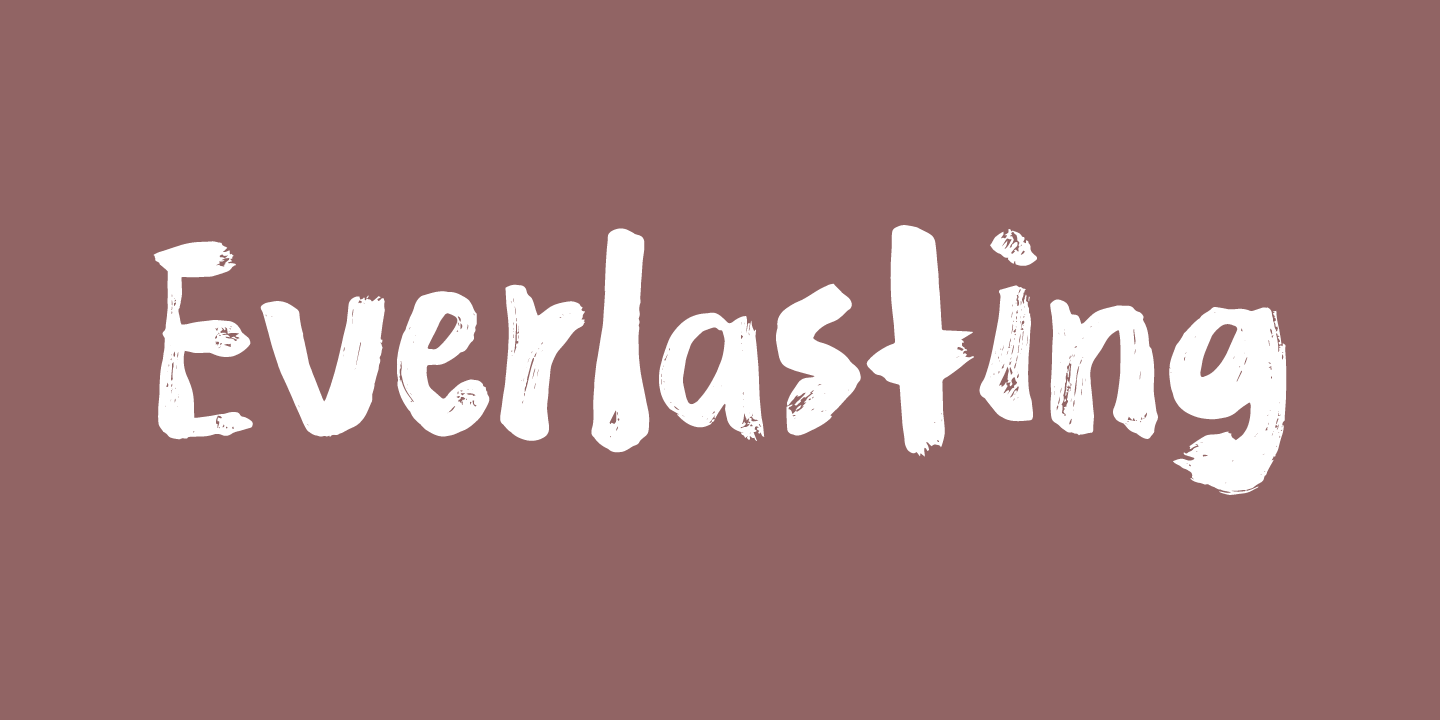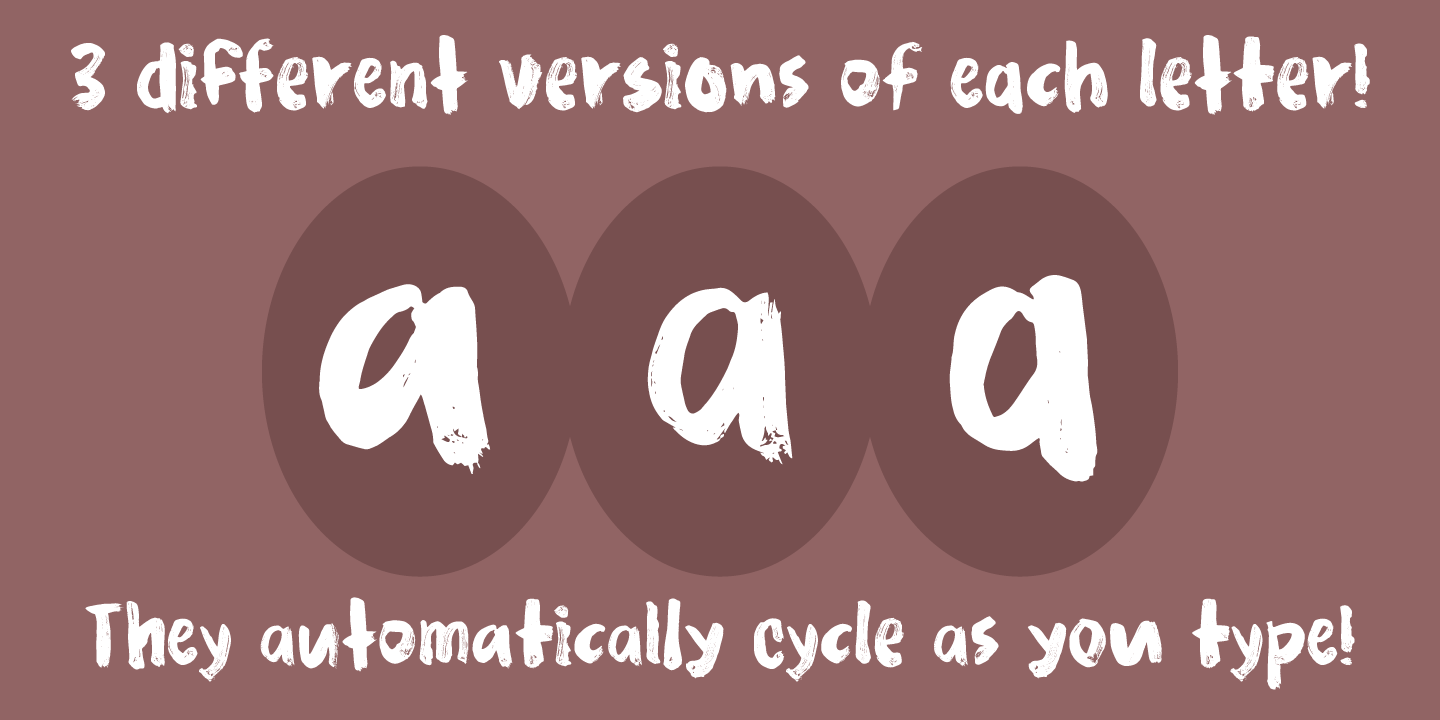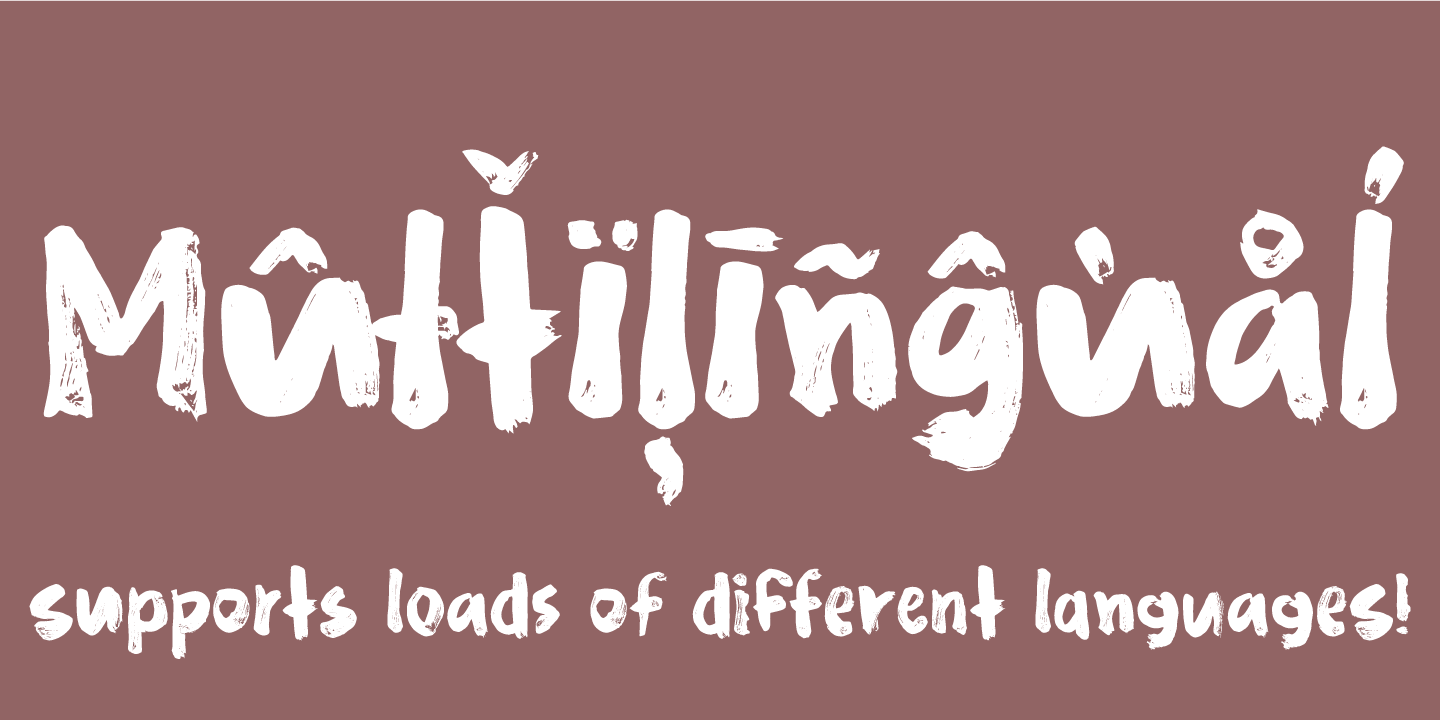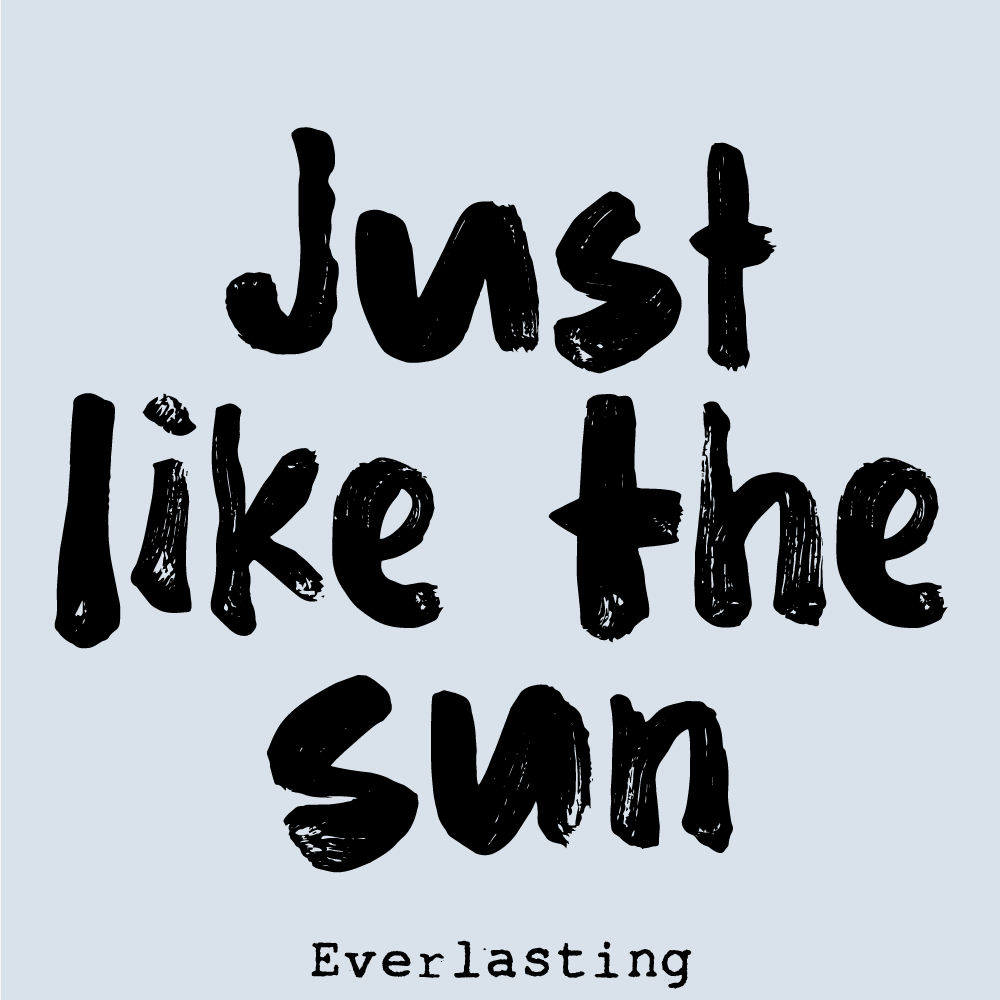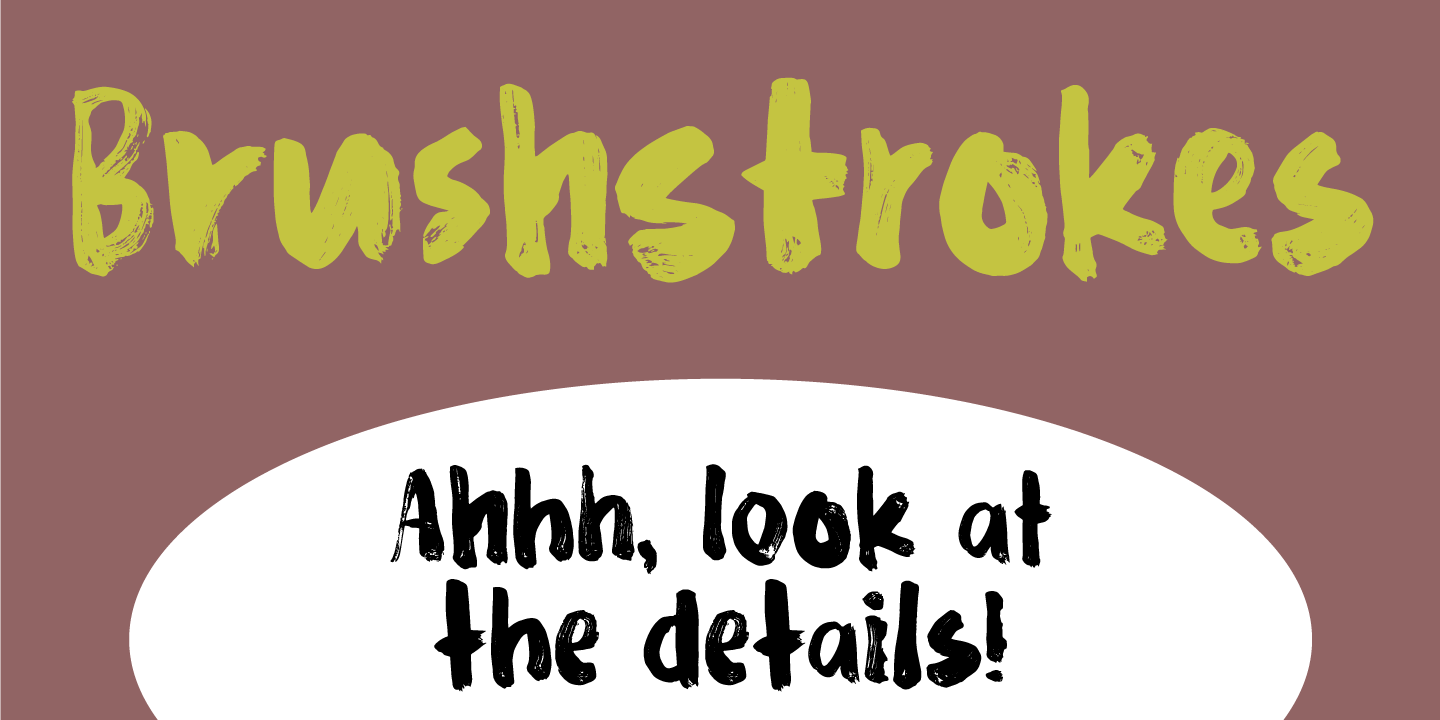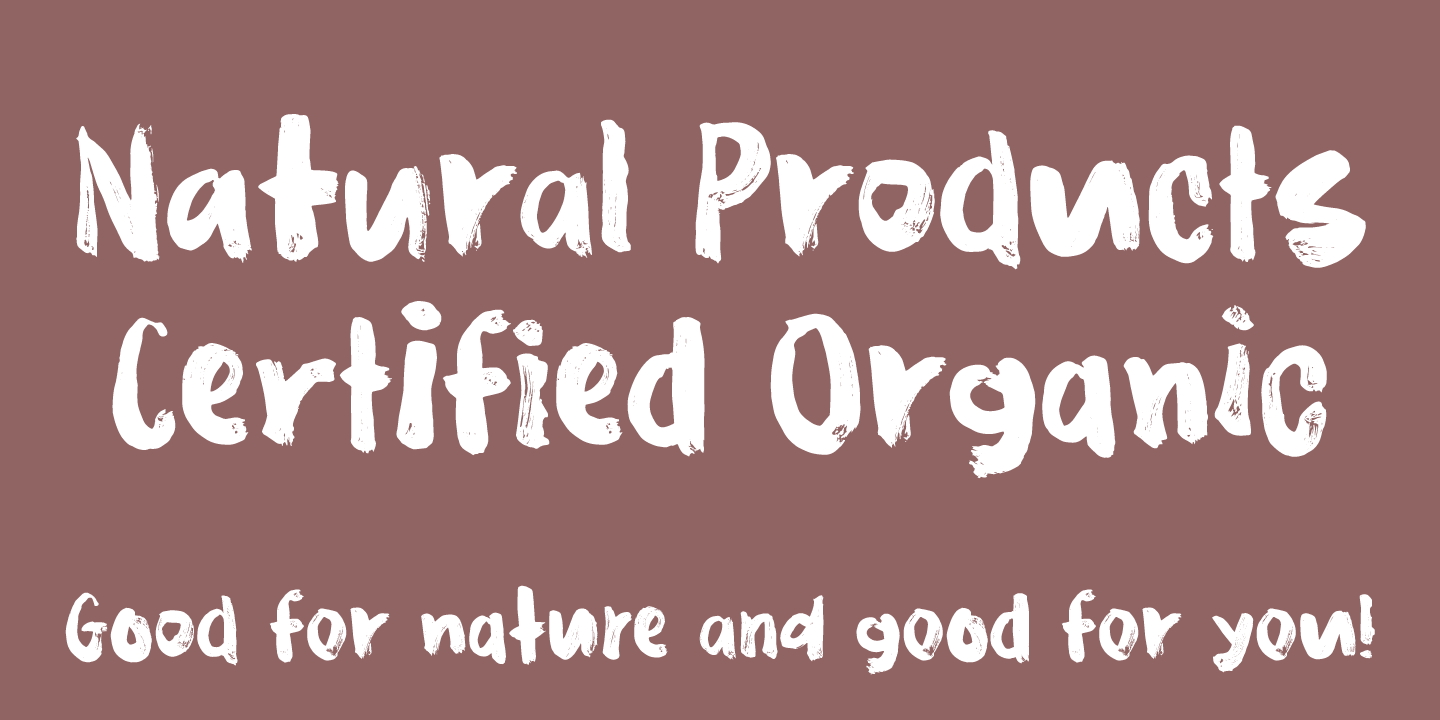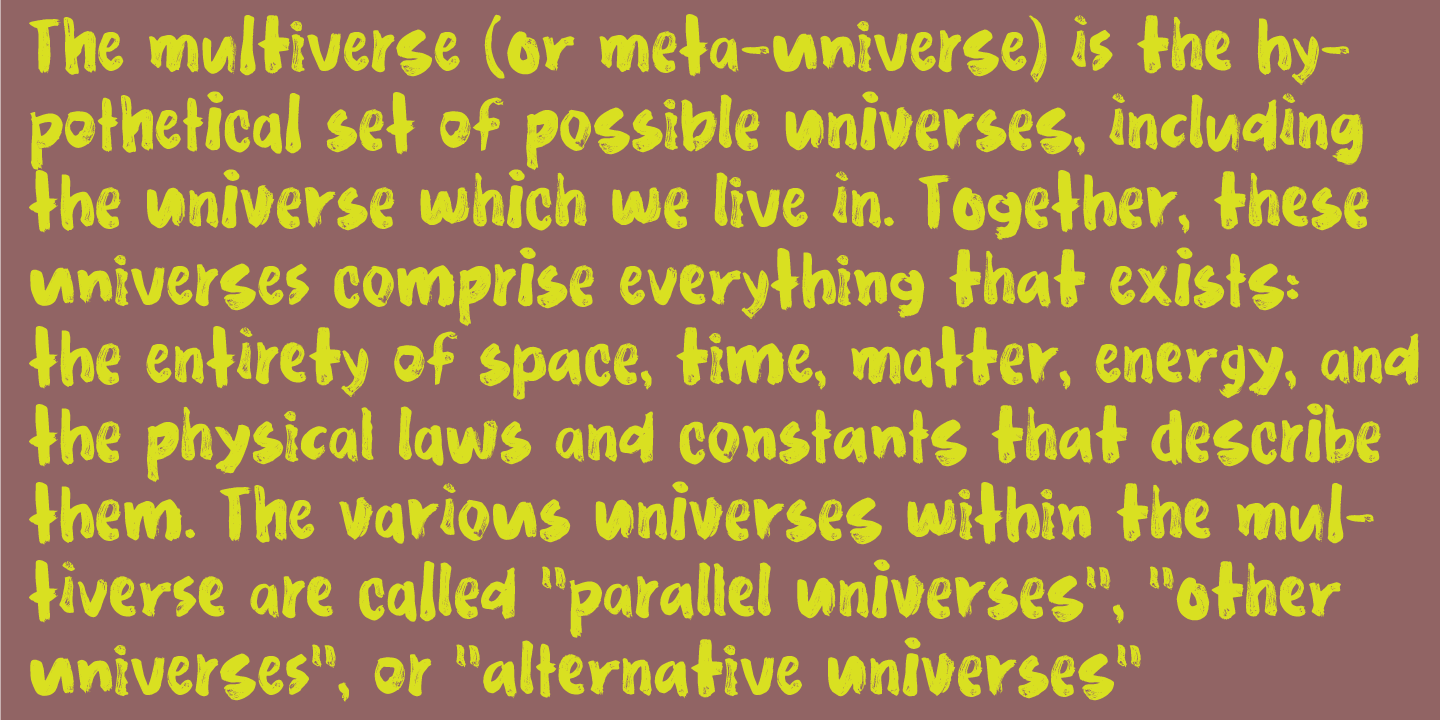
Everlasting
I could have called this font "Cheap Brush" - because that's what I used for the making of it! :) The letters are quite naive and clumsy, but gives a great overall look. The font has multilingual support as well as contextual alternates!